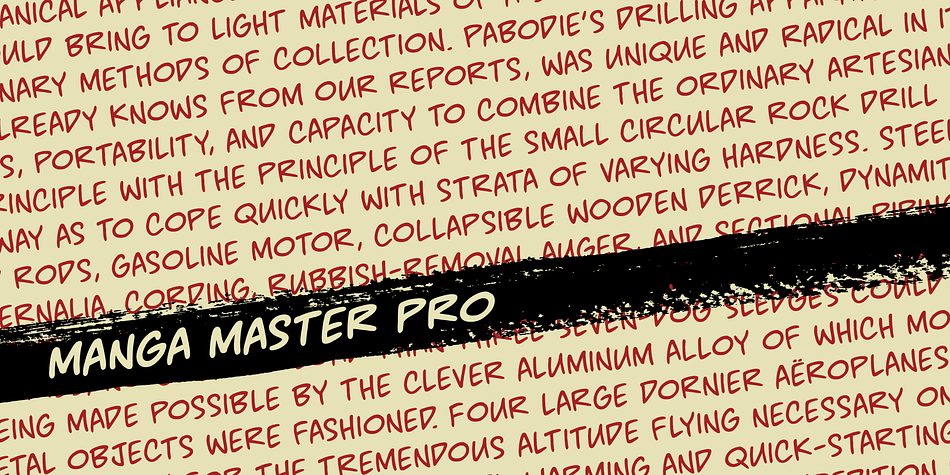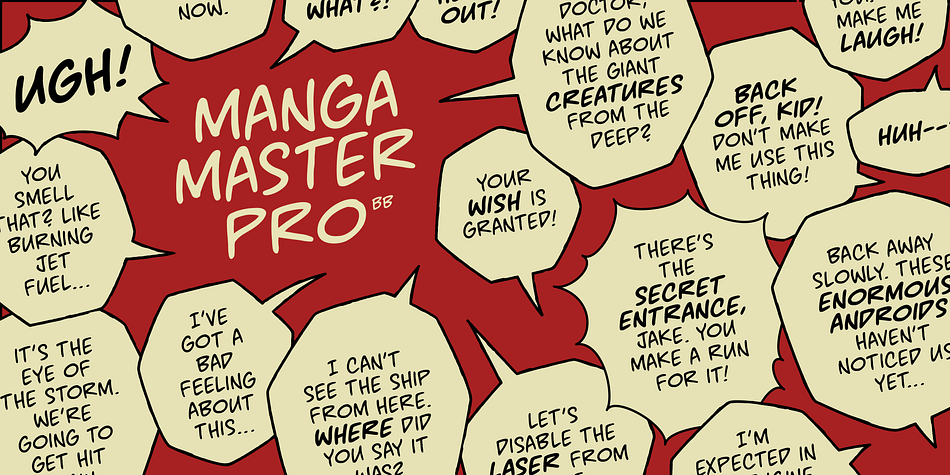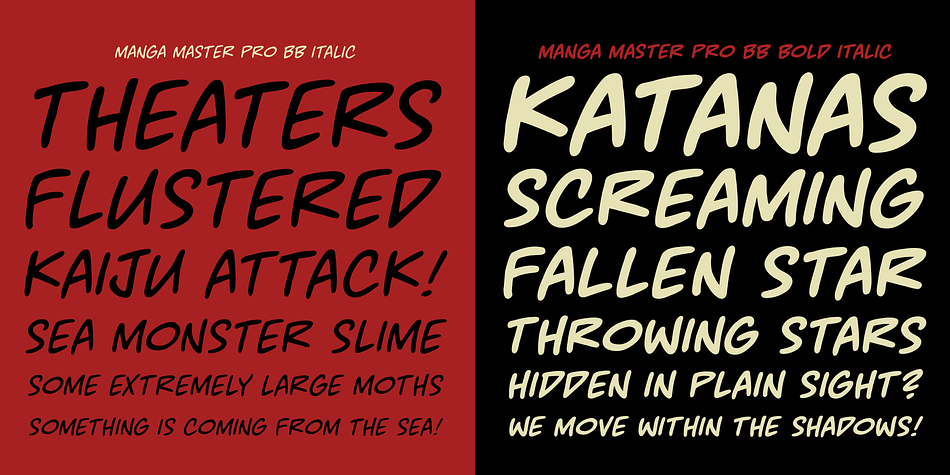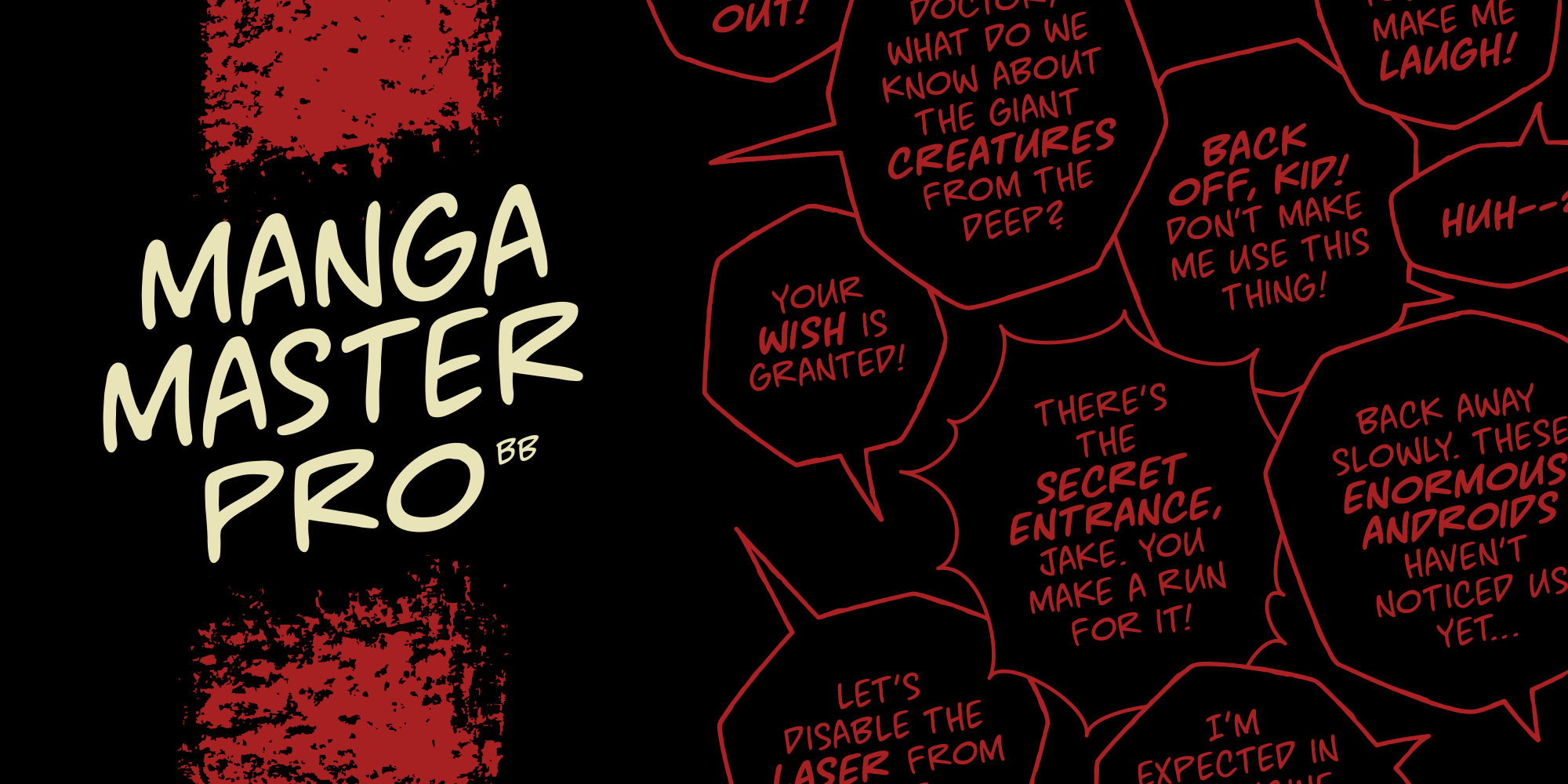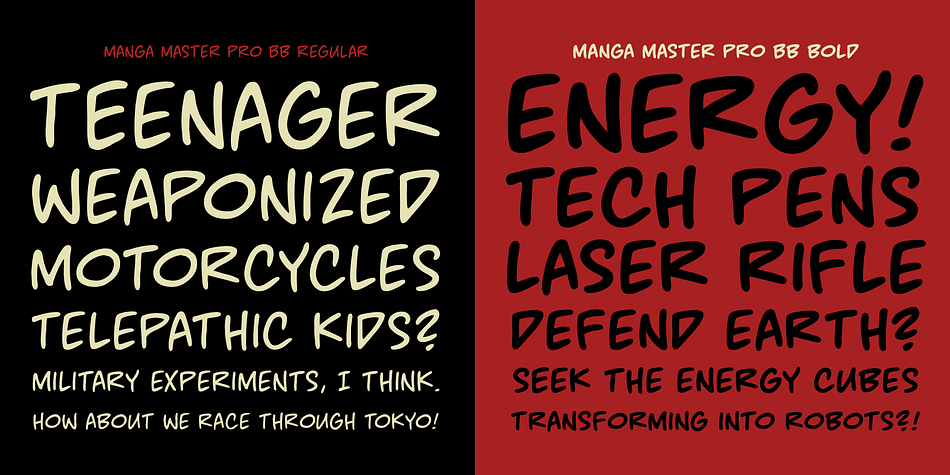
MANGA MASTER PRO BB
Designed by Nate Piekos, Manga Master Pro BB is a comic, display sans and hand display font family. This typeface has four styles and was published by Blambot.
Manga Master, the classic Blambot font, is now Manga Master Pro! It has been updated with new spacing, kerning, and hinting as well as new autoligs, manga translation glyphs, CAlts, fractions, barred-I correction and more!
Foundry Blambot
Styles Comic, Display Sans, Hand Display
Designer Nate Piekos